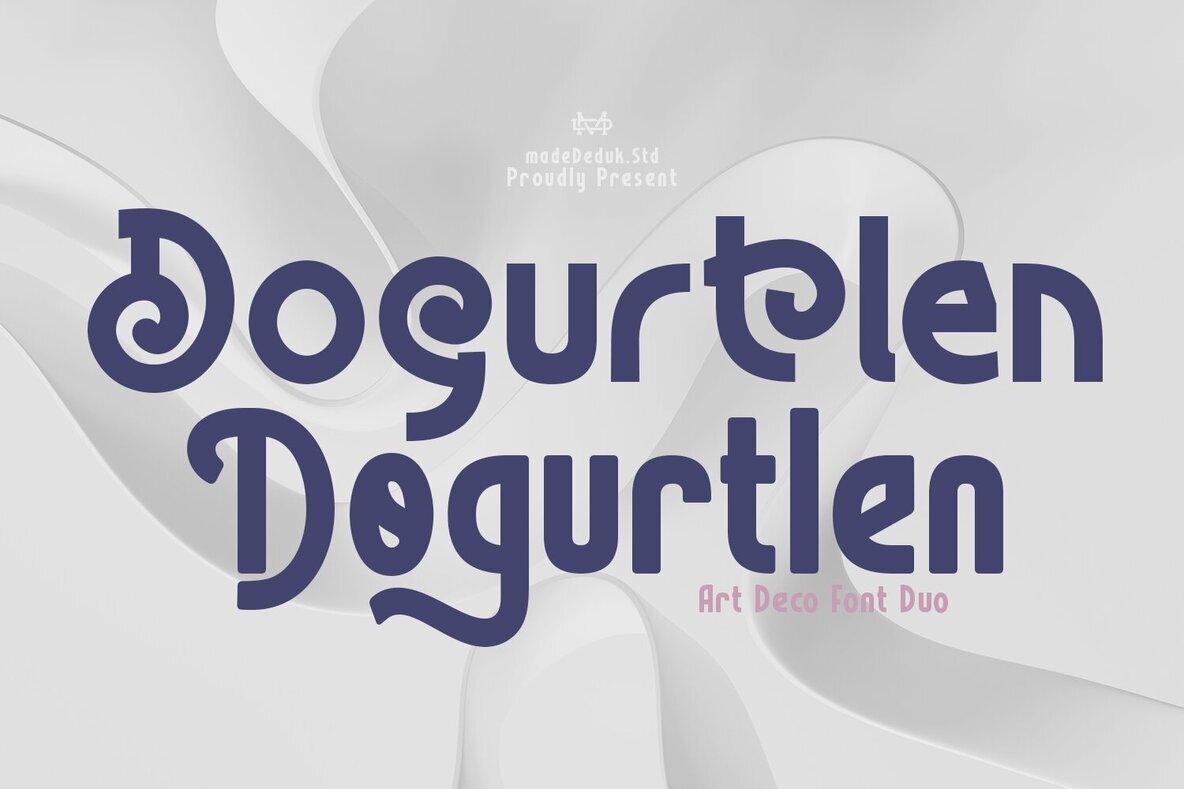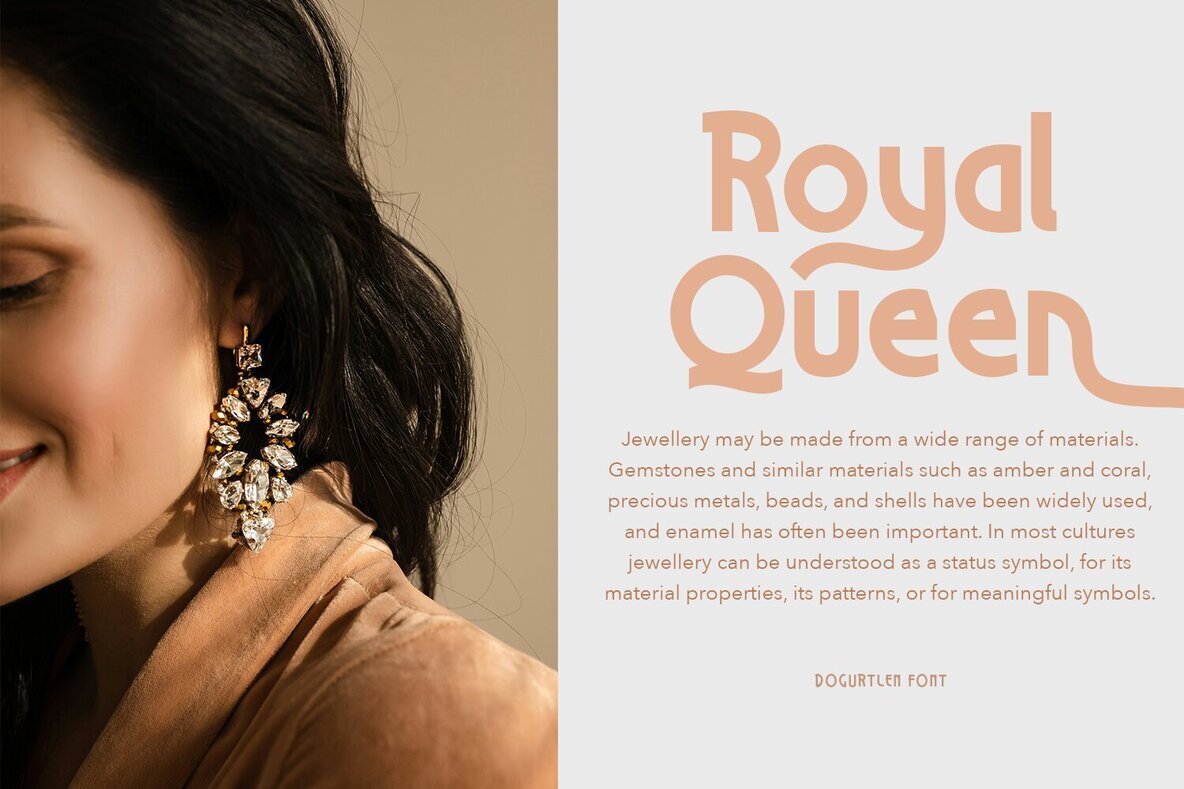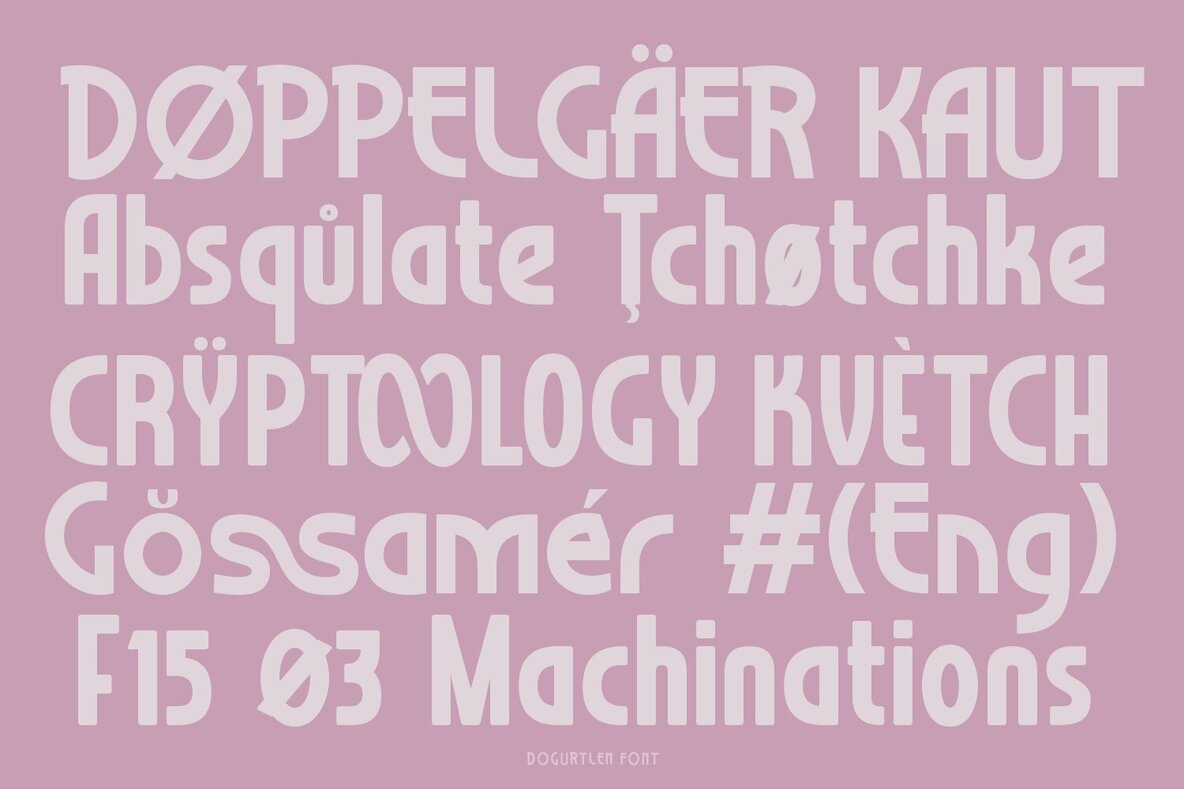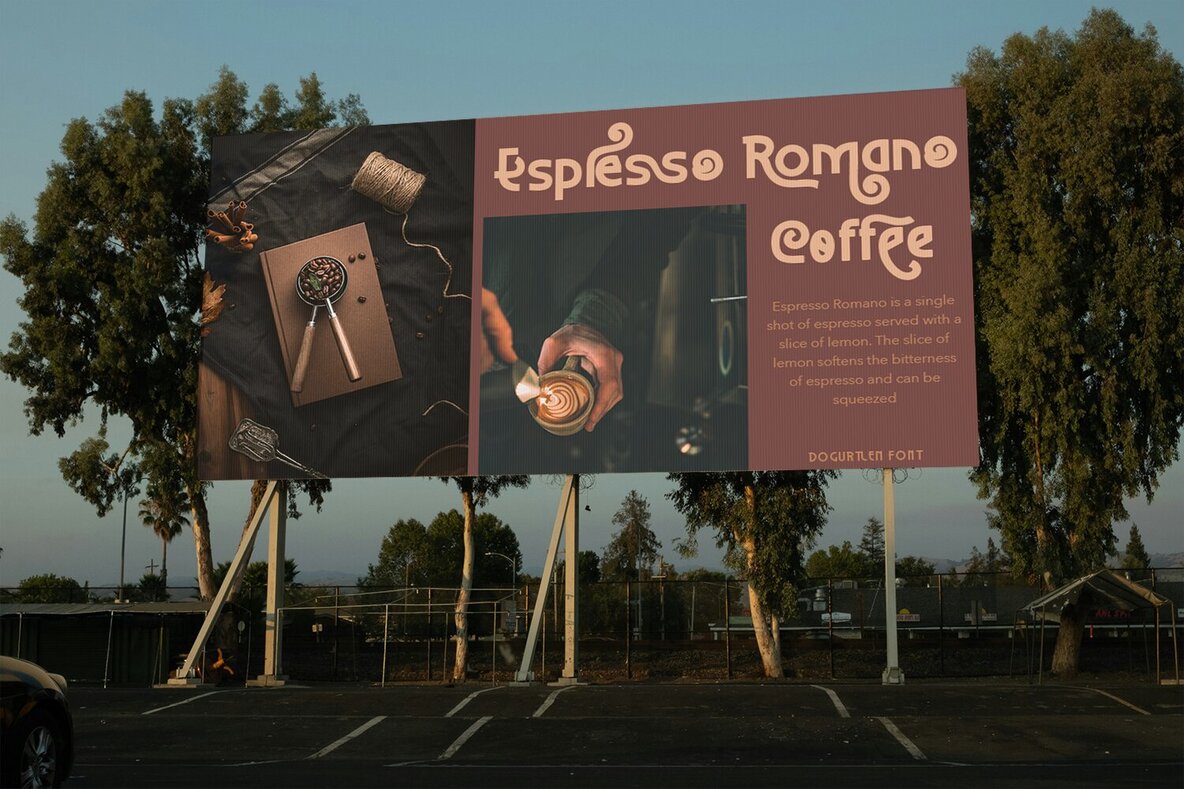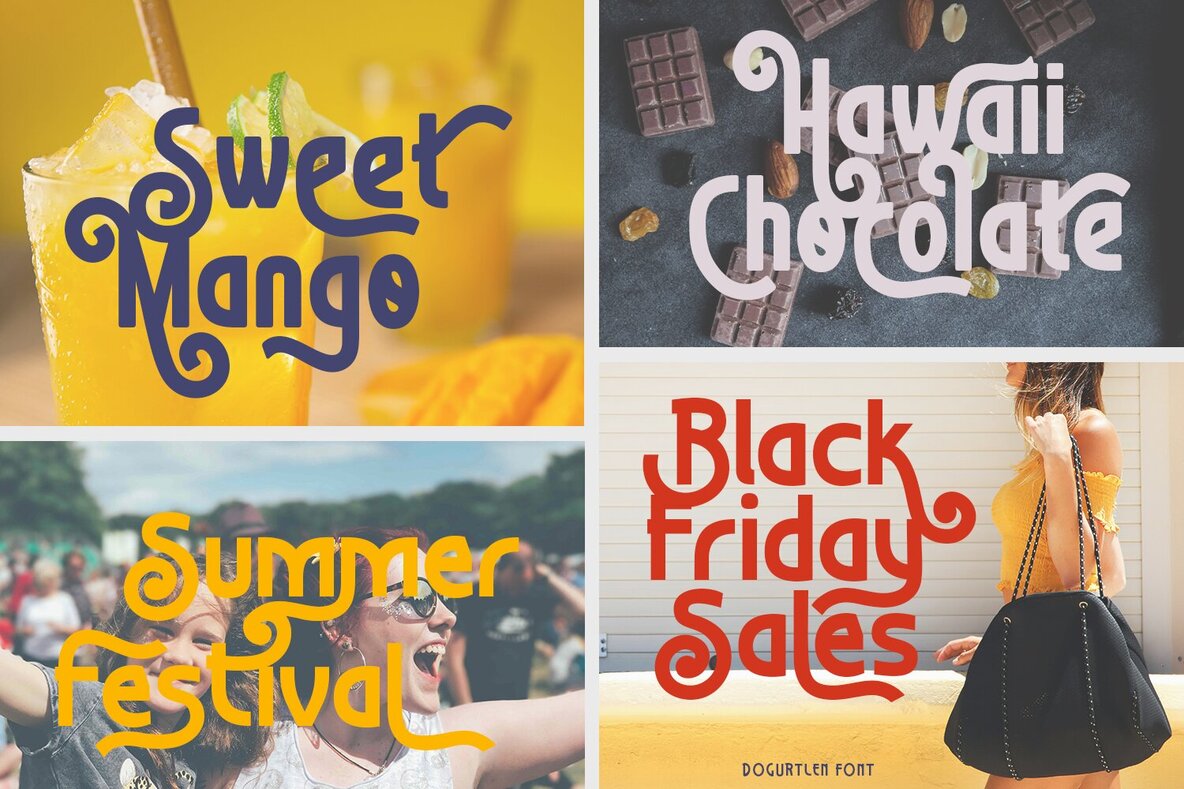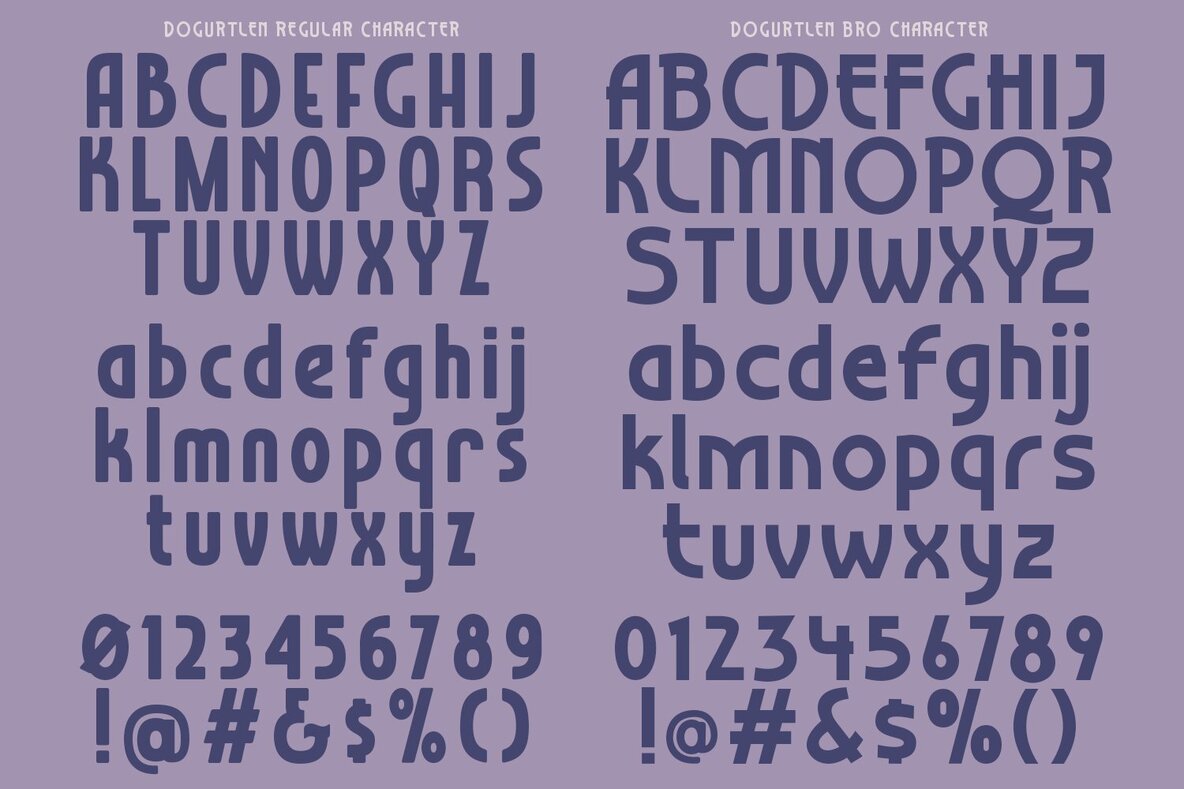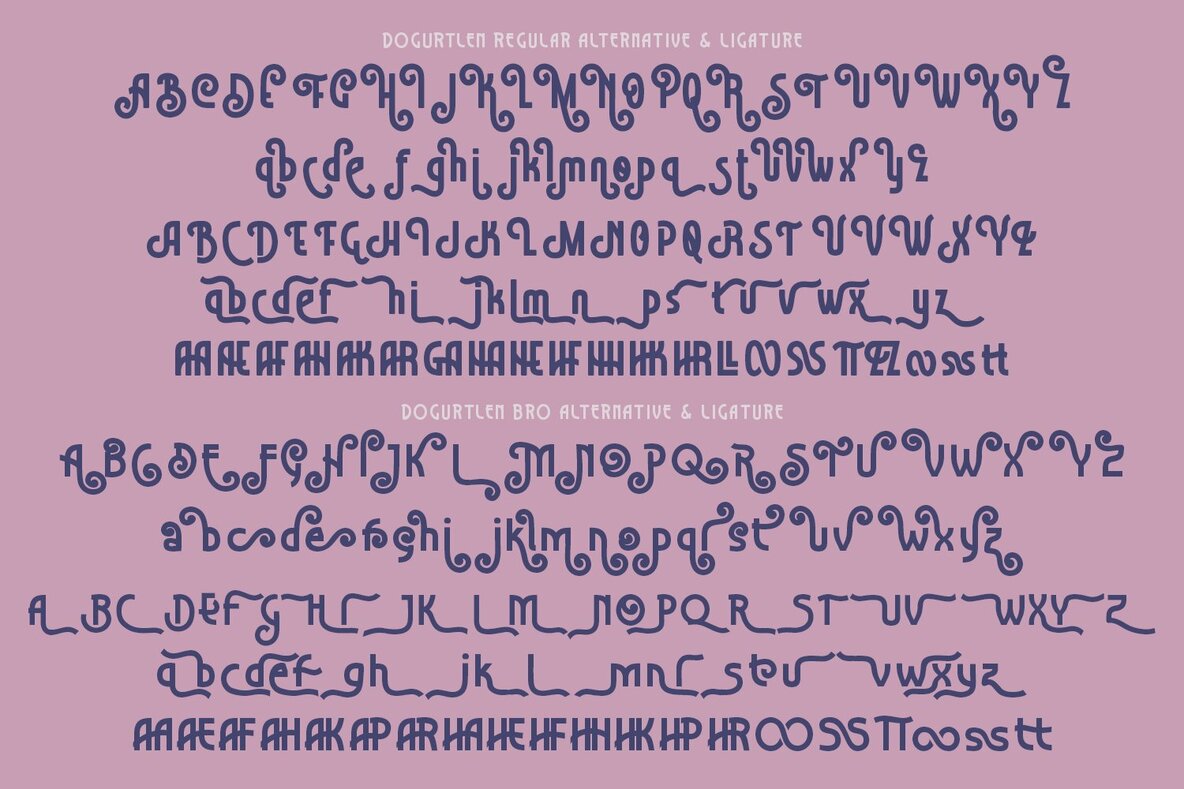
Dogurtlen Font
Dogurtlen
Dogurtlen Bro
Dogurtlen is a sophisticated art deco font duo, merging luxury and elegance for a distinct visual impact. With varying widths and curly alternatives, this font offers ligature characters to enhance your creative potential, providing the flexibility needed to tailor each design. Perfect for classic-themed projects, Dogurtlen is ideal for applications like magazines, headlines, book covers, logos, and packaging.
The unique structure of Dogurtlen accommodates a range of design needs, making it adaptable for diverse projects. Whether you're refining a brand's identity or crafting an evocative book cover, the font's elegance and versatility ensure a strong visual presence. Embrace Dogurtlen for a touch of refinement in your design endeavors.